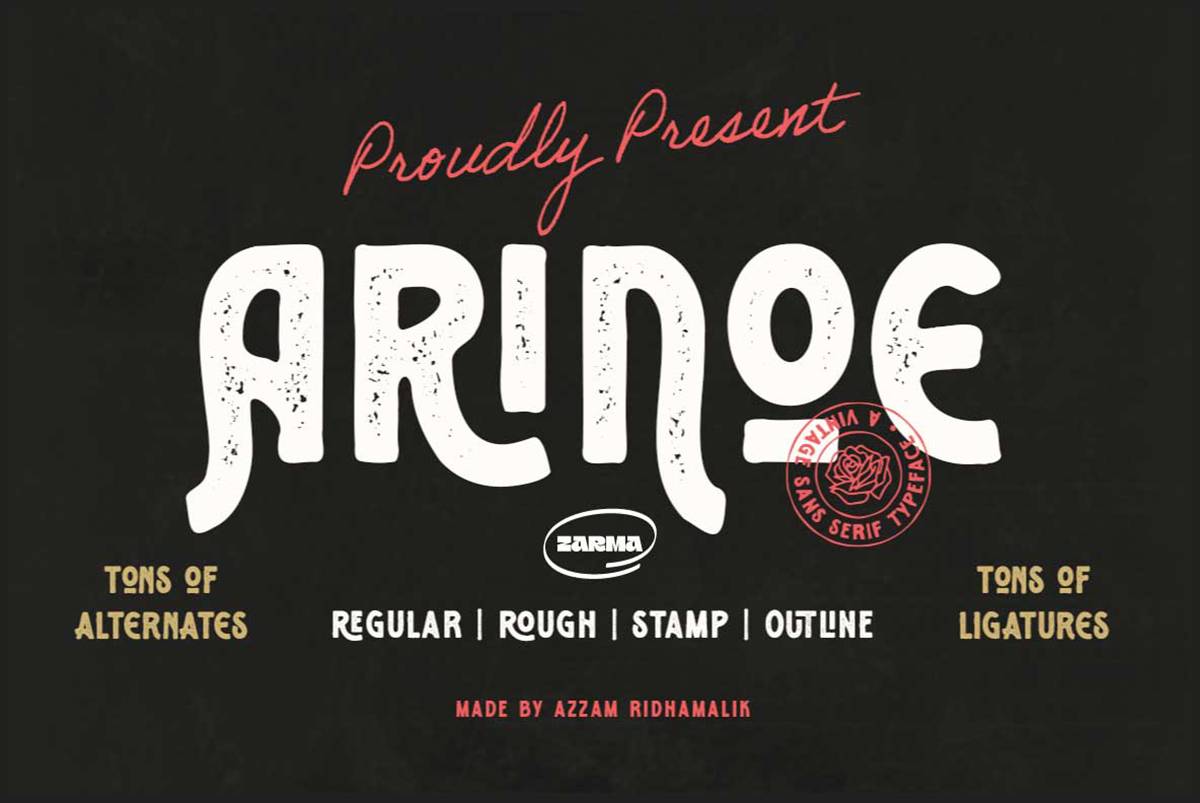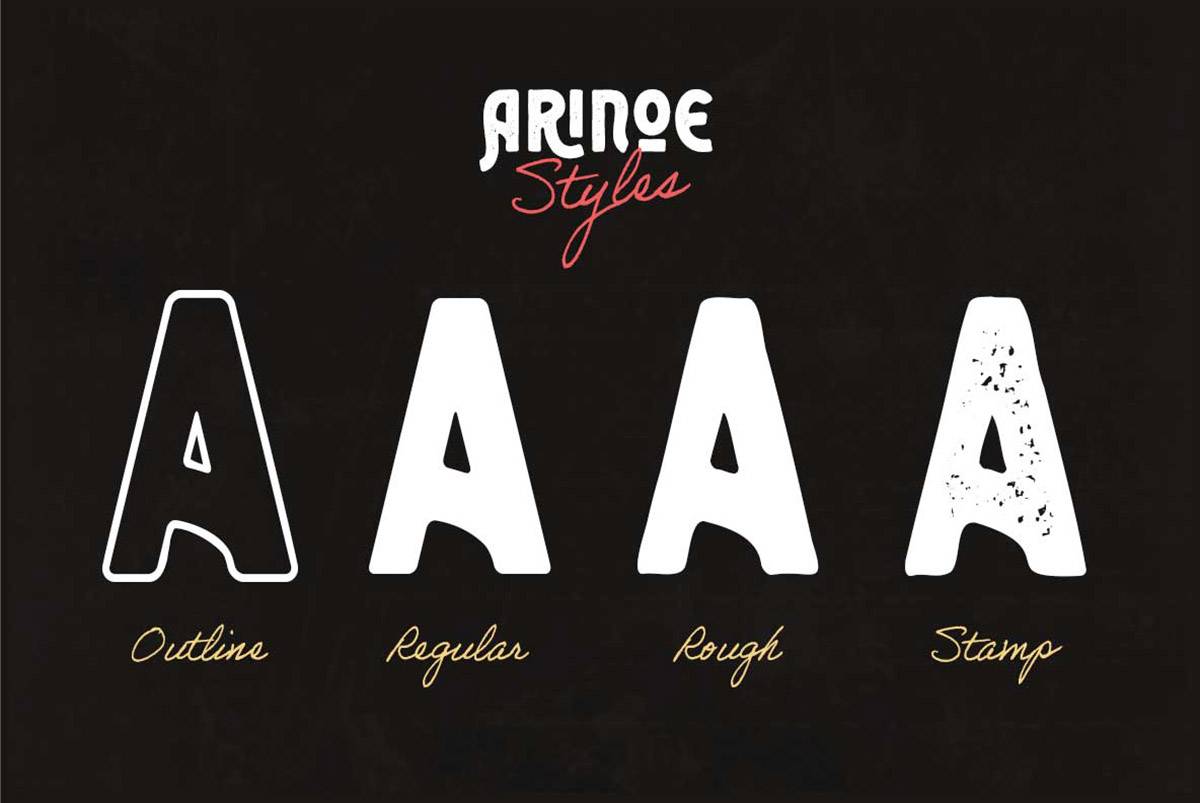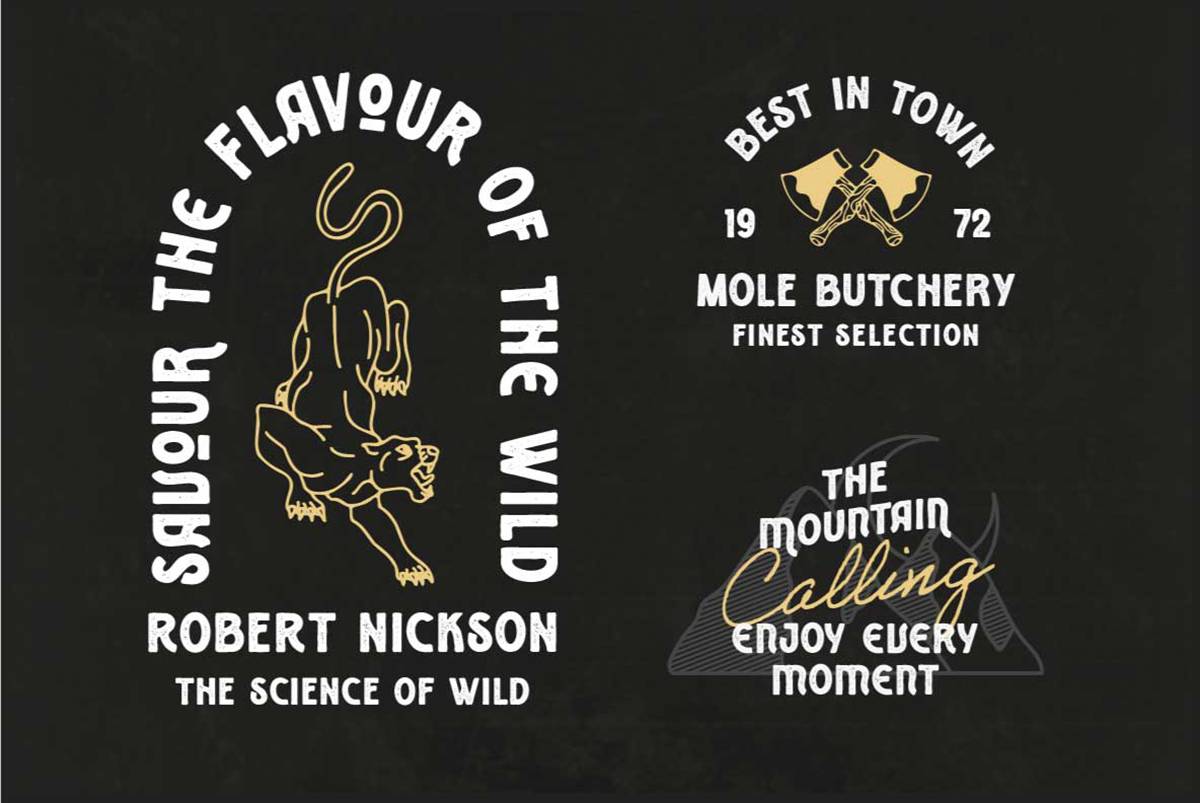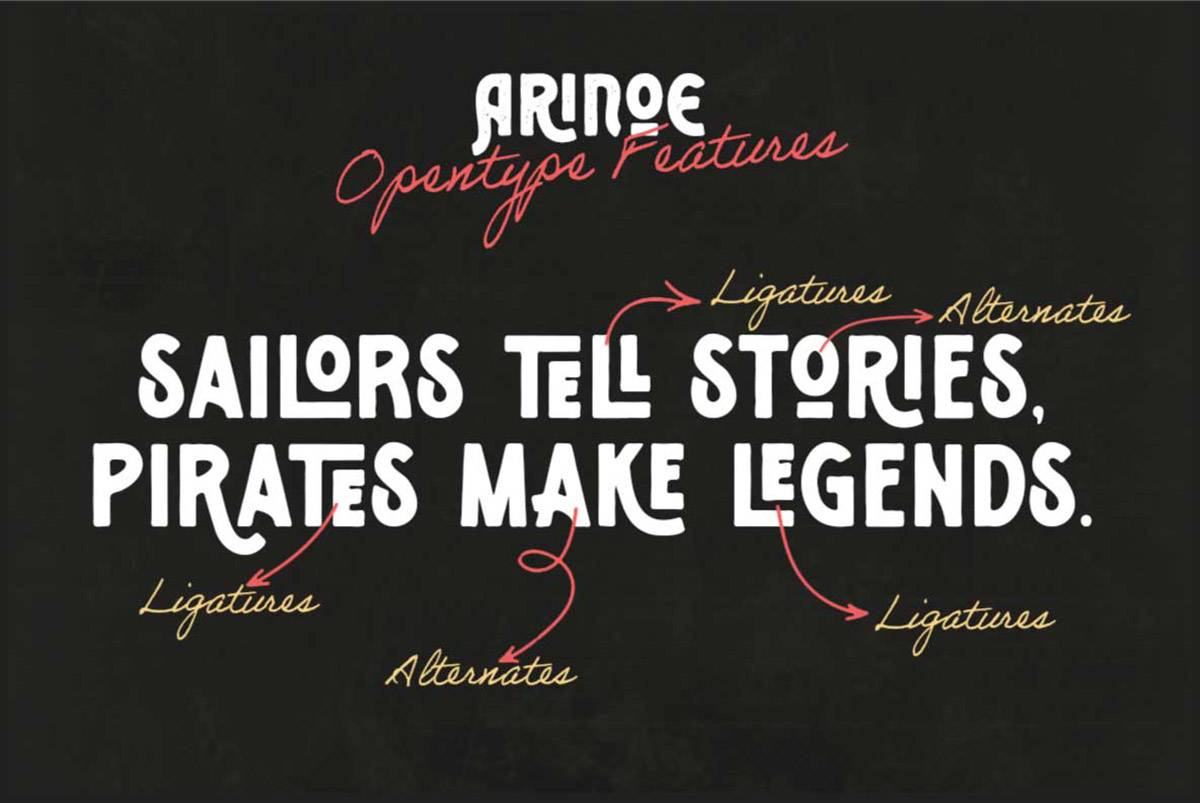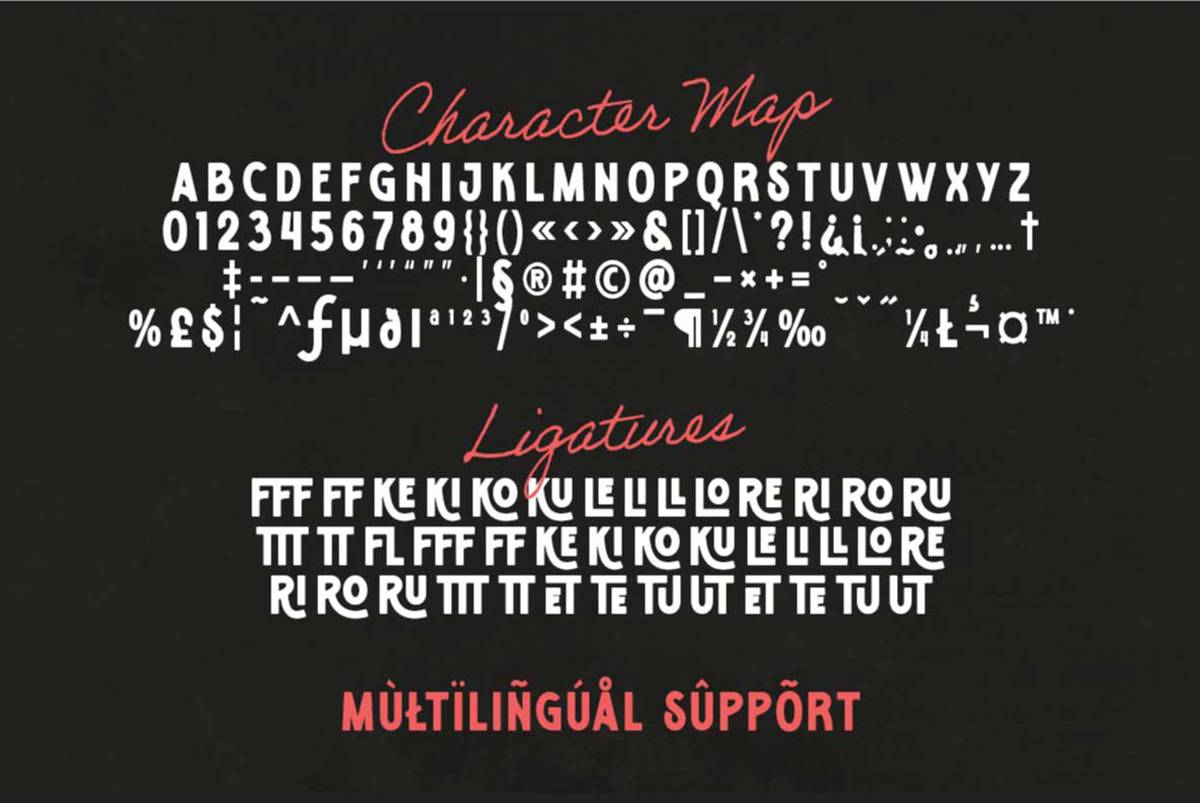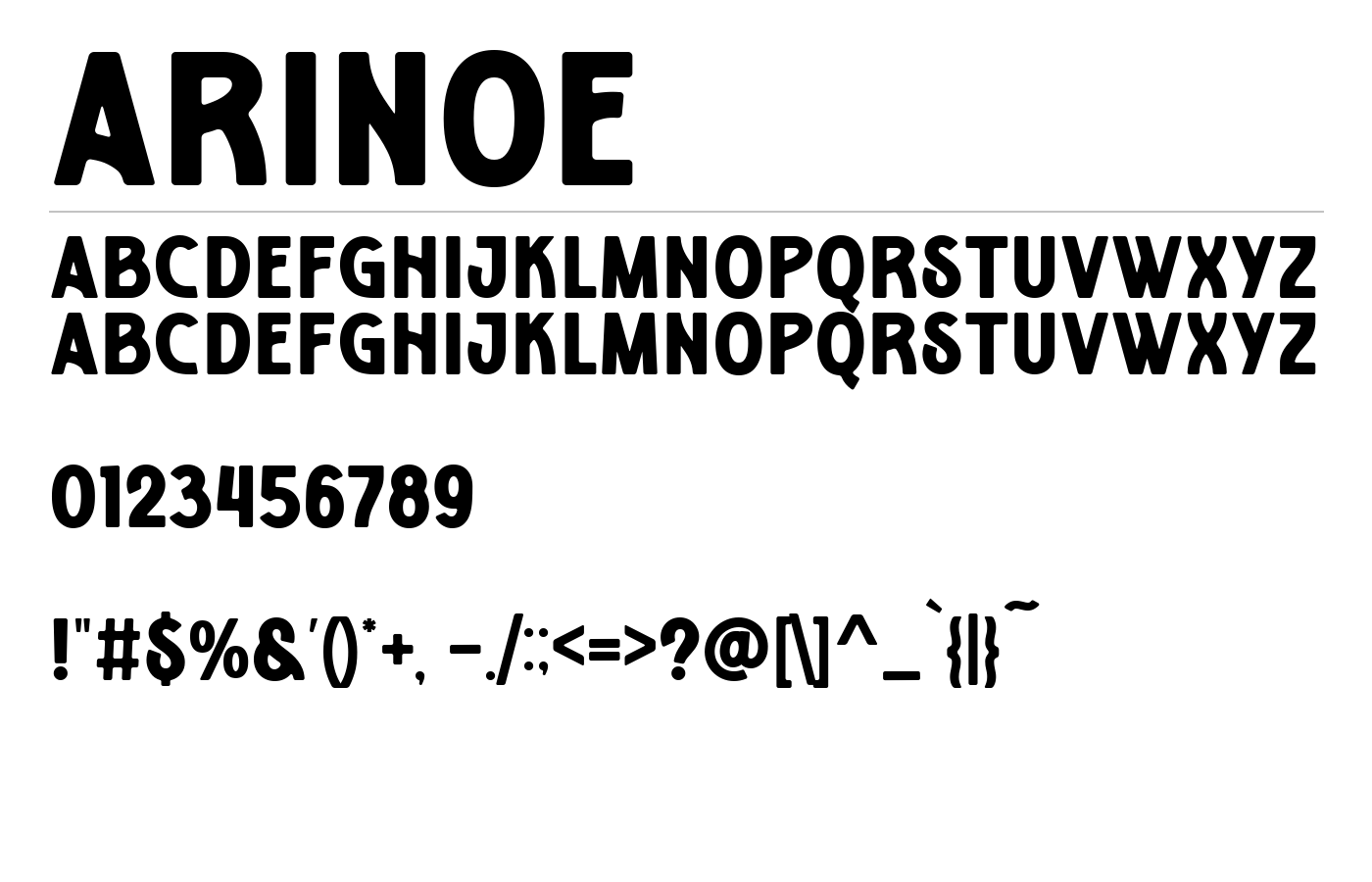
Arinoe is a bold, playful sans serif font featuring rounded, somewhat irregular letterforms that add a fun, informal touch. Its strong weight and upright stance make it great for eye-catching headlines, logos, and branding that aim for a friendly, approachable vibe. This font works well in creative projects, children’s materials, and casual advertising where a lively and unique personality is desired.
Arinoe Font
About Arinoe Font
| Designer | Azzam Ridhamalik |